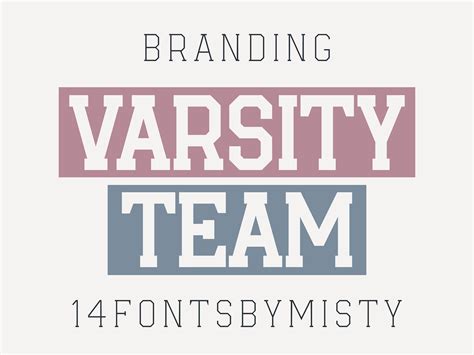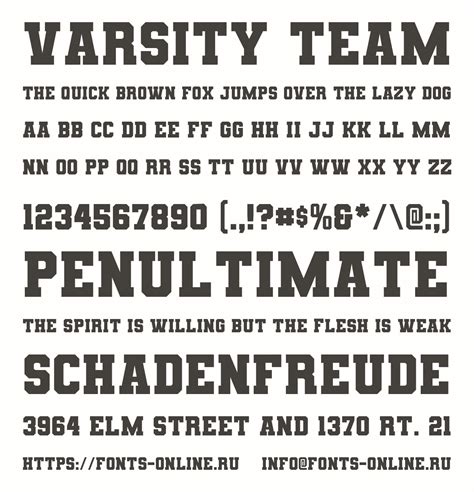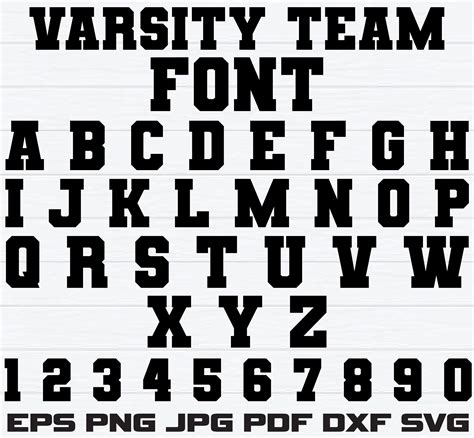
In the world of design and branding, typography plays a crucial role in conveying the right message and creating a lasting impression. One font that has gained significant attention in recent years is the Varsity Team Font. This font is not just a typeface; it's a statement of style and sophistication that can elevate any design project. Whether you're working on a logo, a poster, or a website, the Varsity Team Font offers a unique blend of elegance and modernity that can make your work stand out.
Understanding the Varsity Team Font
The Varsity Team Font is a versatile typeface that combines classic and contemporary elements. It is often associated with a sense of prestige and professionalism, making it a popular choice for various applications. The font's clean lines and balanced proportions contribute to its timeless appeal, ensuring that it remains relevant in ever-changing design trends.
Key Features of the Varsity Team Font
The Varsity Team Font boasts several key features that make it a favorite among designers:
- Elegant Design: The font's sleek and refined design adds a touch of sophistication to any project.
- Versatility: It can be used in a wide range of applications, from logos and branding to print and digital media.
- Readability: Despite its elegant appearance, the font maintains high readability, ensuring that your message is clear and easy to understand.
- Modern Appeal: The Varsity Team Font strikes a balance between classic and modern styles, making it suitable for contemporary designs.
Applications of the Varsity Team Font
The Varsity Team Font is incredibly versatile and can be used in various design projects. Here are some common applications:
- Logos and Branding: The font's elegant design makes it an excellent choice for creating logos and branding materials. It can help convey a sense of professionalism and sophistication, making it ideal for high-end brands.
- Print Media: Whether it's a brochure, poster, or business card, the Varsity Team Font can enhance the visual appeal of print materials. Its clean lines and balanced proportions ensure that the text is easy to read and visually appealing.
- Digital Media: The font is also well-suited for digital applications, such as websites and social media graphics. Its modern appeal makes it a great choice for creating eye-catching digital content.
- Packaging Design: The Varsity Team Font can add a touch of elegance to packaging design, making products stand out on the shelves. Its versatility allows it to be used in various packaging styles, from luxury items to everyday products.
Designing with the Varsity Team Font
When designing with the Varsity Team Font, there are several tips and best practices to keep in mind:
- Pairing with Other Fonts: The Varsity Team Font pairs well with a variety of other fonts. For a classic look, consider pairing it with a serif font. For a more modern aesthetic, a sans-serif font can be a great complement.
- Color Schemes: The font's elegant design works well with a range of color schemes. For a sophisticated look, consider using neutral colors like black, white, and gray. For a more vibrant design, bold colors can add a striking contrast.
- Spacing and Alignment: Proper spacing and alignment are crucial when using the Varsity Team Font. Ensure that the text is well-spaced and aligned to maintain readability and visual appeal.
- Consistency: Consistency is key when using any font. Make sure to use the Varsity Team Font consistently across all your design elements to create a cohesive and professional look.
Case Studies: Successful Use of the Varsity Team Font
To illustrate the effectiveness of the Varsity Team Font, let's look at a few case studies where it has been successfully used:
Case Study 1: Luxury Brand Logo
A high-end fashion brand wanted to create a logo that conveyed elegance and sophistication. The design team chose the Varsity Team Font for its clean lines and refined appearance. The font was paired with a gold color scheme to enhance the luxurious feel. The result was a logo that perfectly captured the brand's essence and stood out in the competitive fashion industry.
Case Study 2: Wedding Invitations
A couple wanted to create elegant and memorable wedding invitations. They opted for the Varsity Team Font to add a touch of sophistication to their invitations. The font was used in combination with a soft color palette and delicate floral illustrations. The invitations received rave reviews from guests, who appreciated the elegant and timeless design.
Case Study 3: Corporate Website
A tech company wanted to revamp its website to reflect its modern and innovative image. The design team chose the Varsity Team Font for its clean and contemporary appearance. The font was used in the headings and subheadings, providing a consistent and professional look throughout the site. The website's new design received positive feedback from users, who found it easy to navigate and visually appealing.